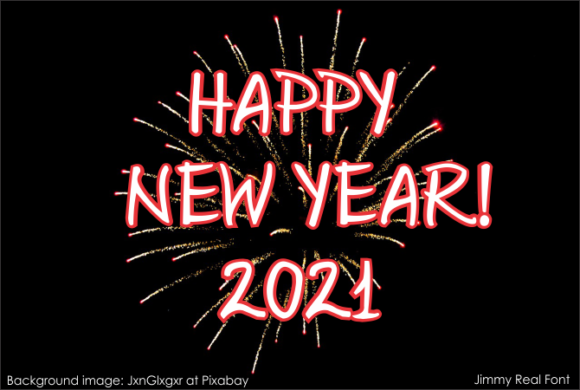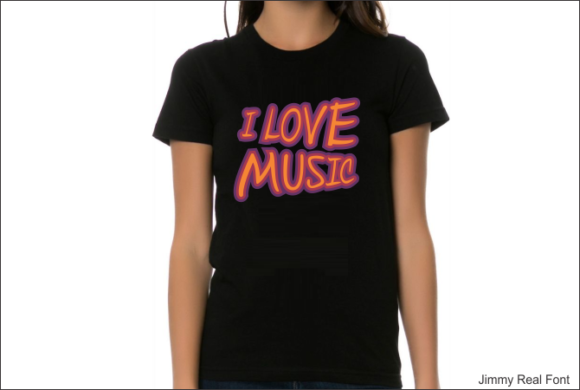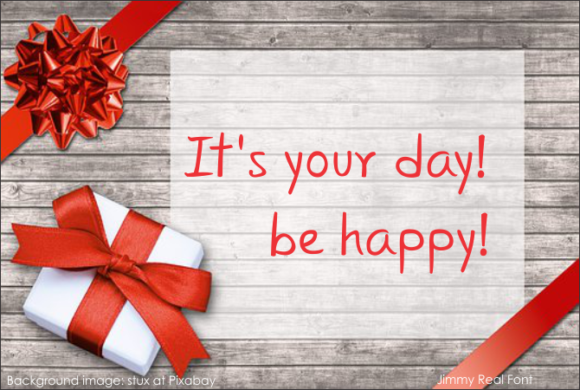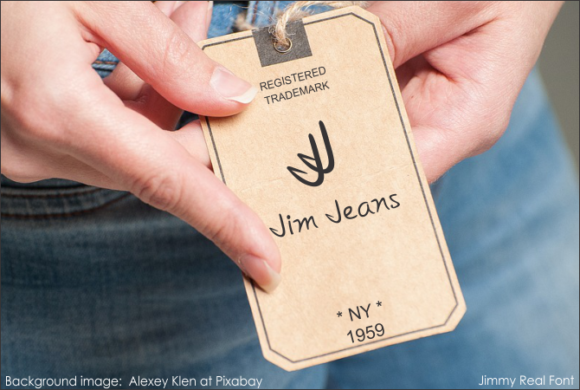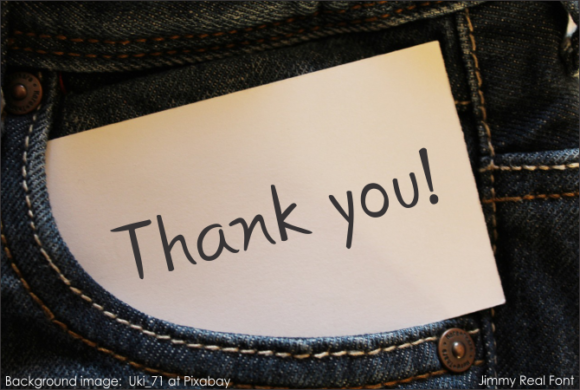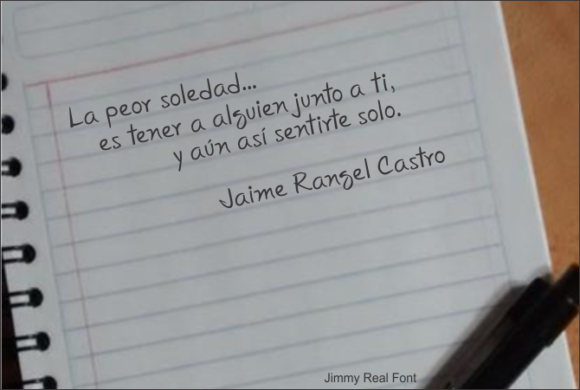
Jimmy Real Font
About Jimmy Real Font
Jimmy Real is a simple and clean handwritten font that exudes versatility and elegance. Its minimalistic and understated style makes it a great choice for a wide range of design projects. Whether you’re working on branding, packaging, digital media, or print materials, Jimmy Real can effortlessly elevate your designs.
The simplicity of Jimmy Real gives it a timeless appeal. The clean and legible letterforms make it easy to read and work well in both small and large sizes. Its delicate strokes and balanced proportions add a touch of sophistication to any design.
One of the strengths of Jimmy Real is its adaptability. It seamlessly integrates into various design contexts without overpowering the overall composition. Whether you’re looking to create a modern and minimalist look or a classic and elegant aesthetic, Jimmy Real can effortlessly blend in and enhance your design.
This font is particularly well-suited for projects that require a subtle and refined touch. It works beautifully for logo designs, brand identities, business cards, website headers, and more. The simplicity of Jimmy Real allows your content or brand message to take center stage while still adding a touch of handmade charm.
Jimmy Real’s versatility also extends to digital media and social media graphics. It can be used for creating stylish quotes, captions, or overlays that resonate with a clean and modern aesthetic. Its adaptability makes it a valuable asset for designers who value simplicity and want a font that can effortlessly complement their design vision.
In summary, Jimmy Real is a simple and clean handwritten font that offers versatility, elegance, and adaptability. Its delicate and balanced design makes it suitable for a wide range of projects, adding a touch of sophistication without overpowering the overall composition. With Jimmy Real, you can confidently add a refined and timeless element to your designs.